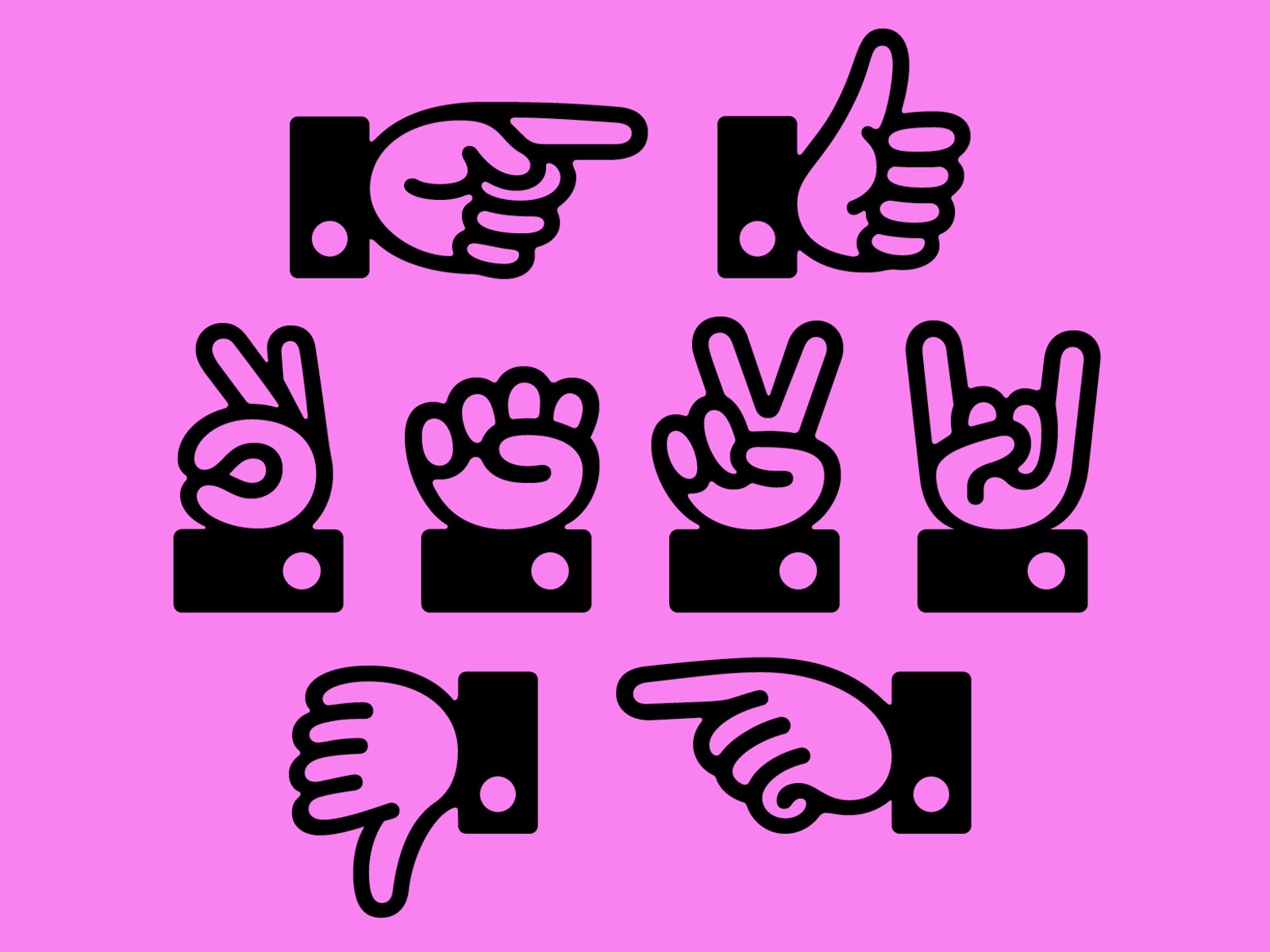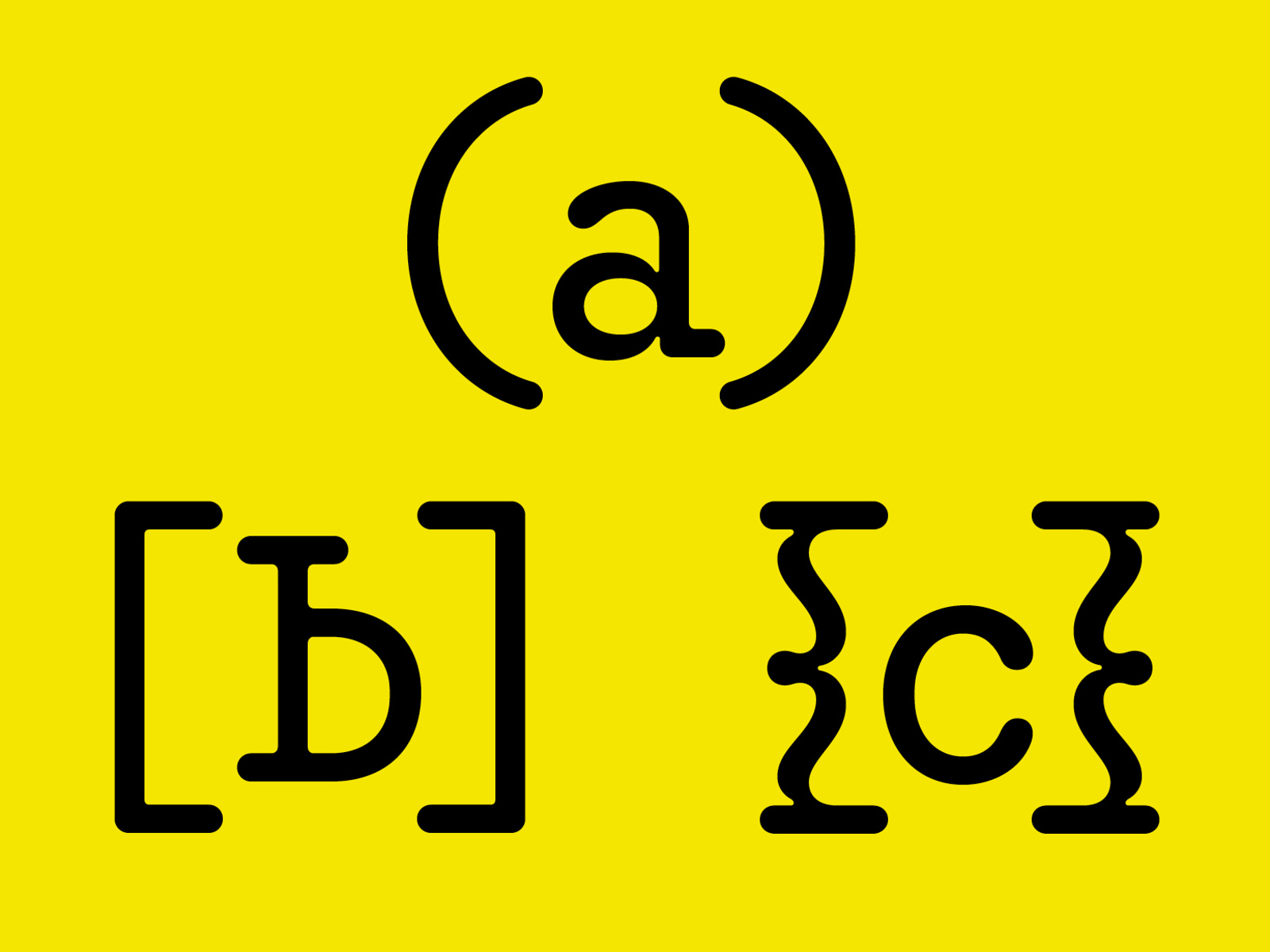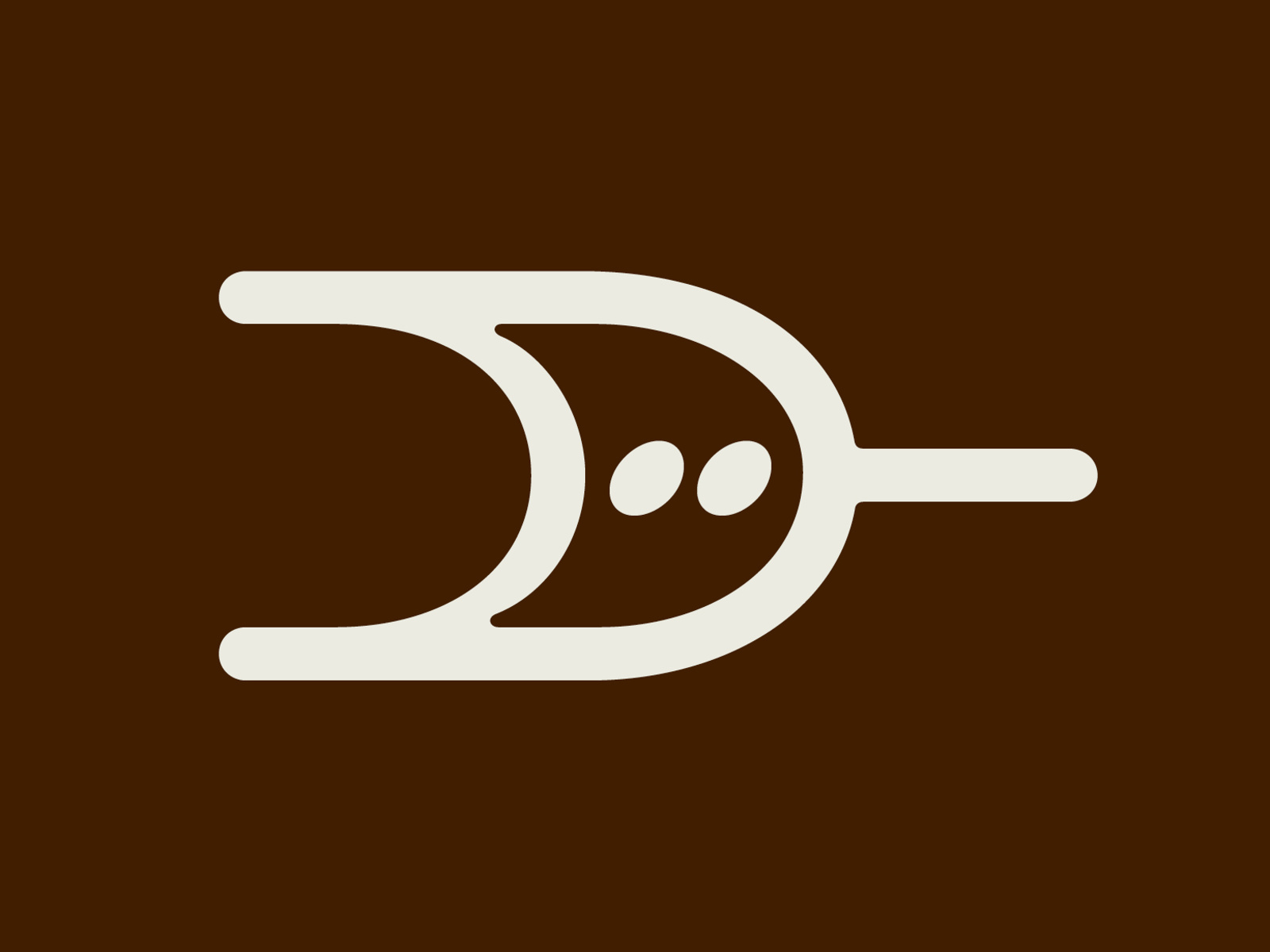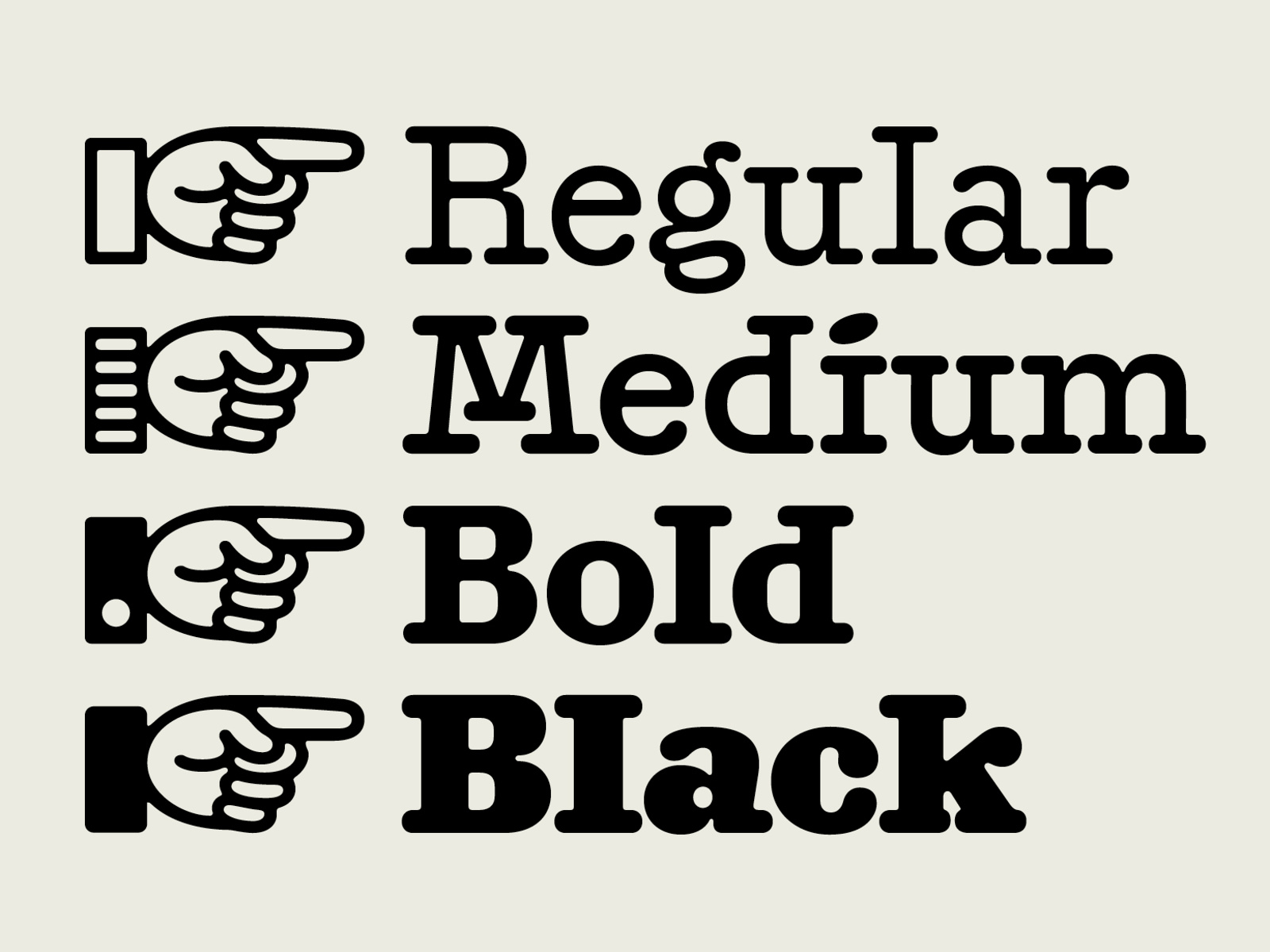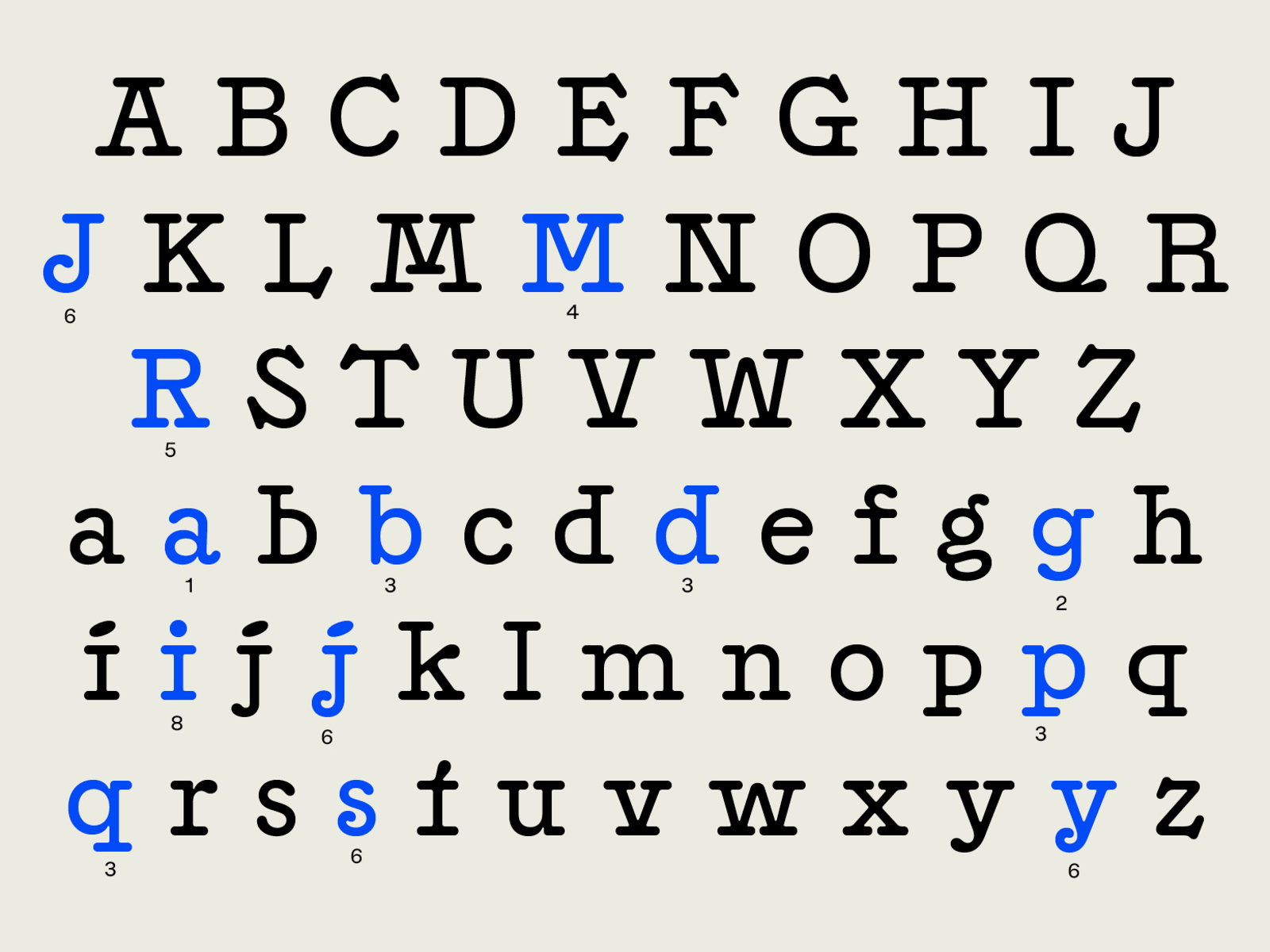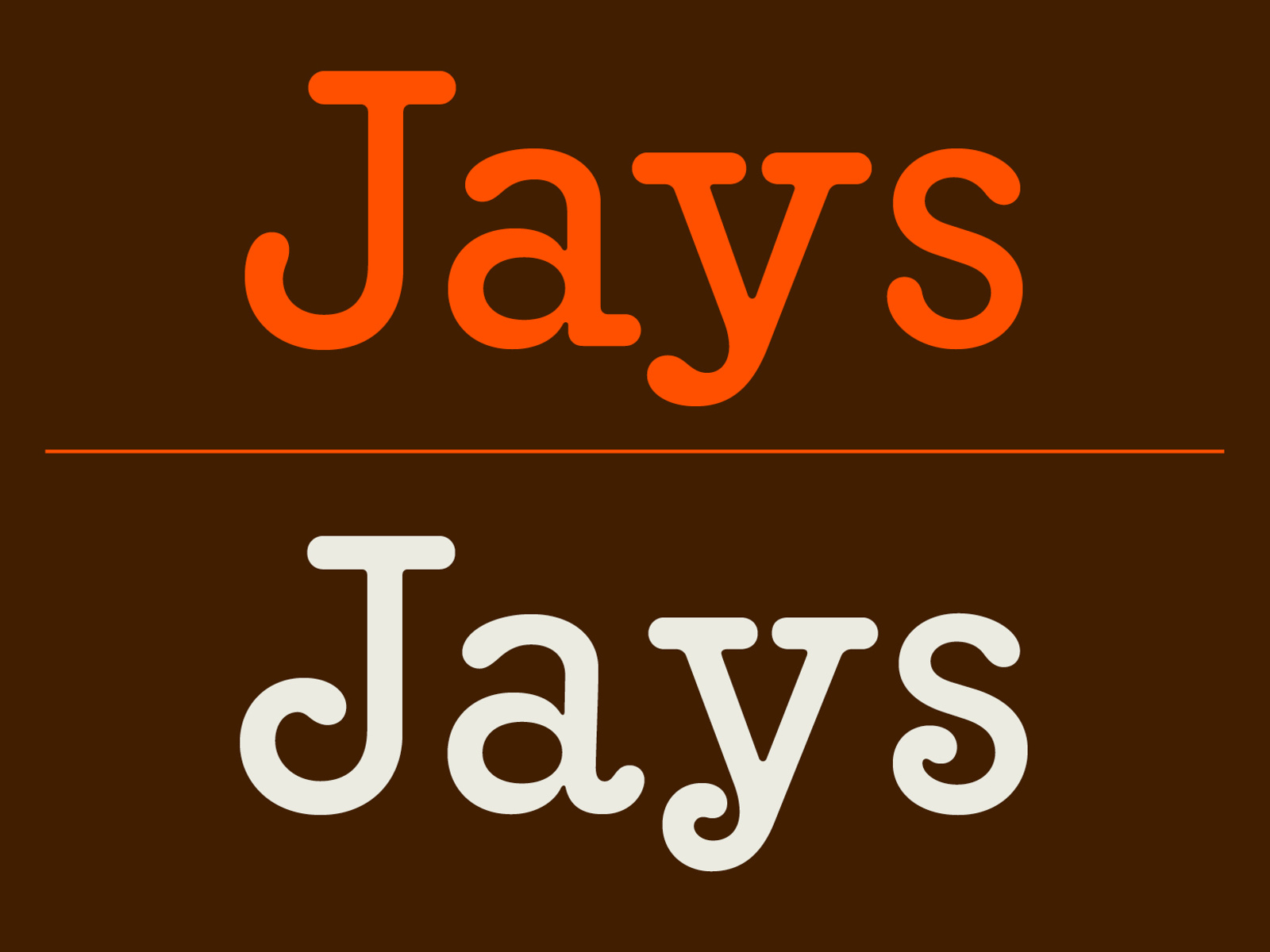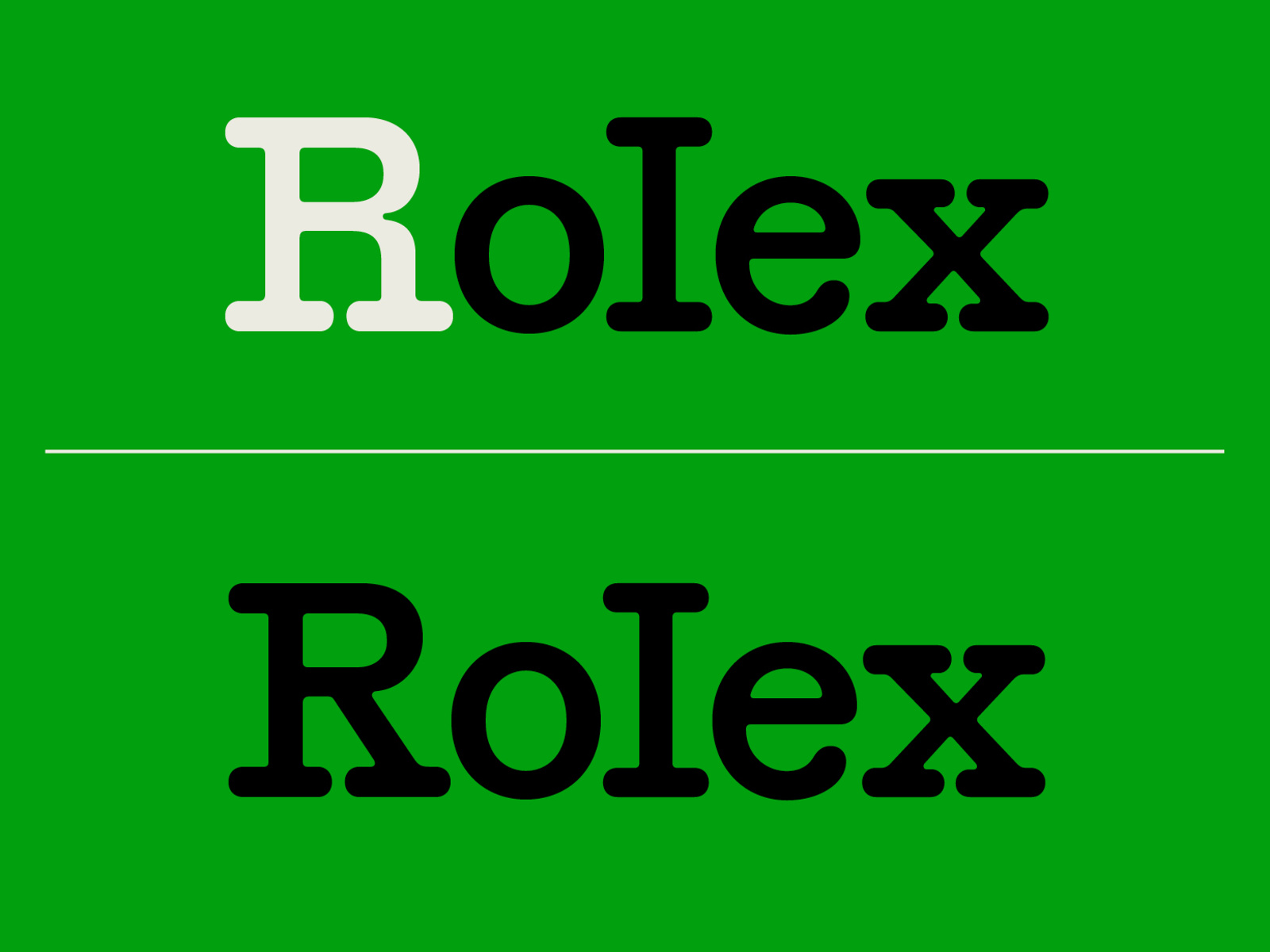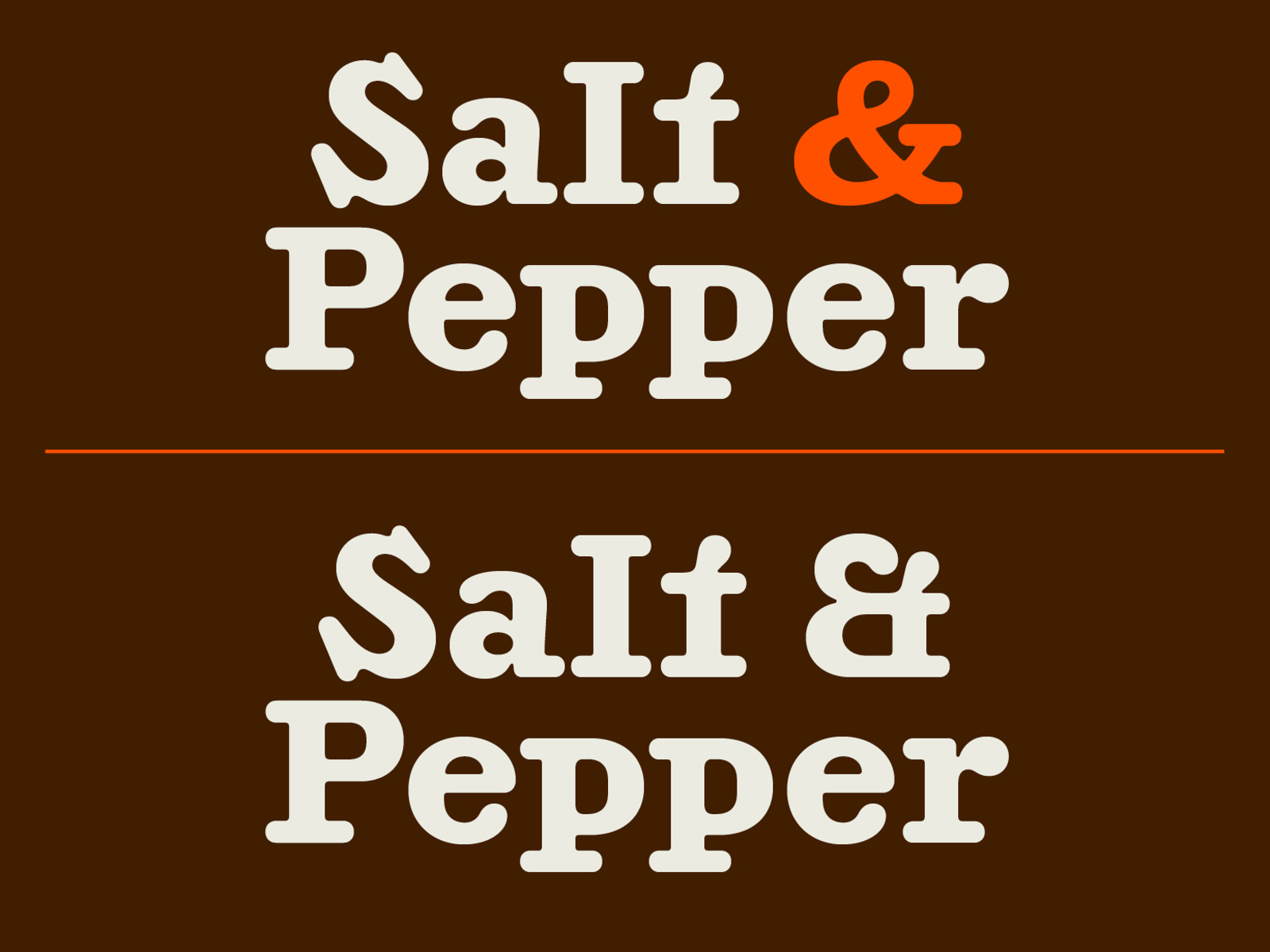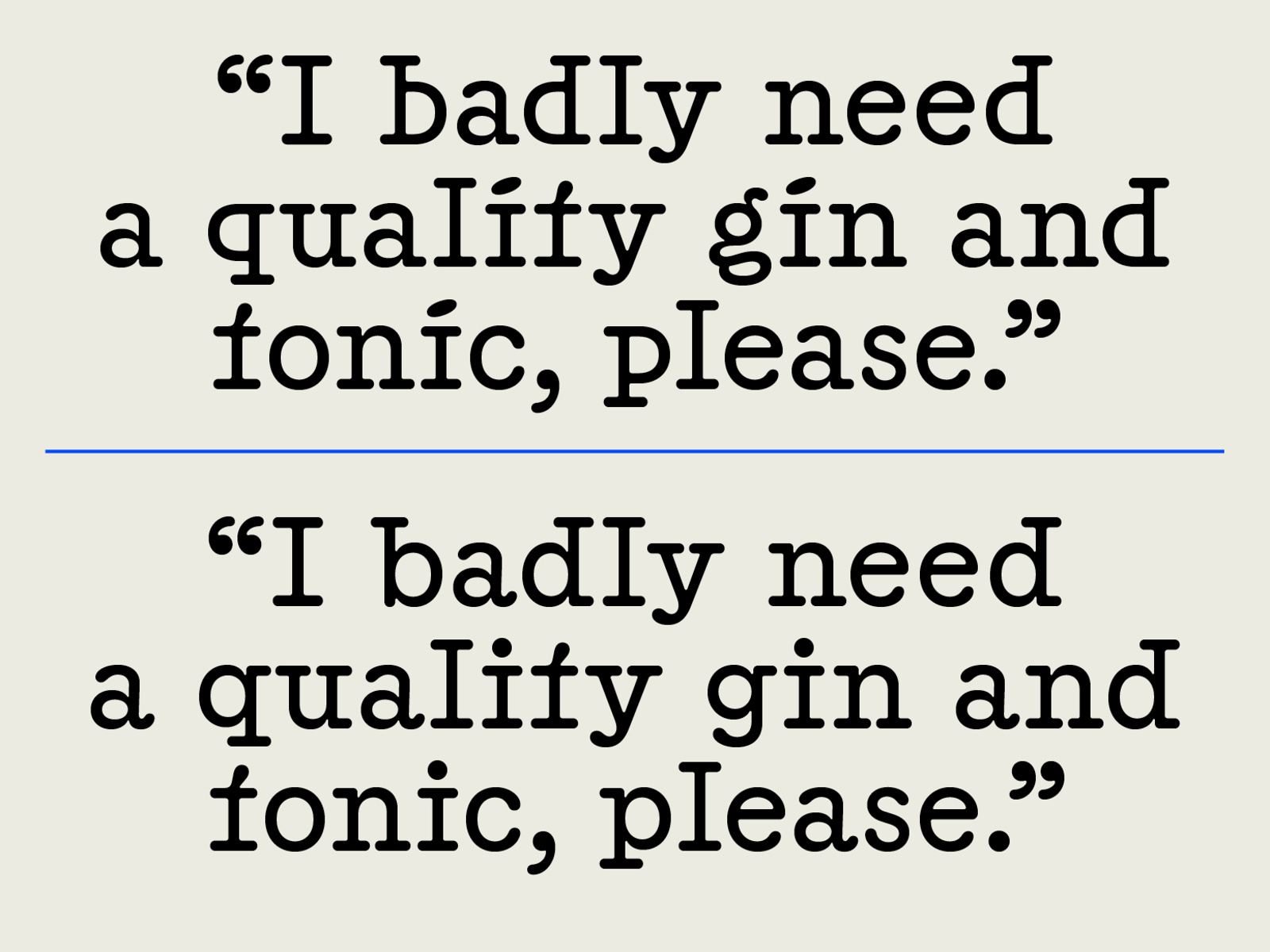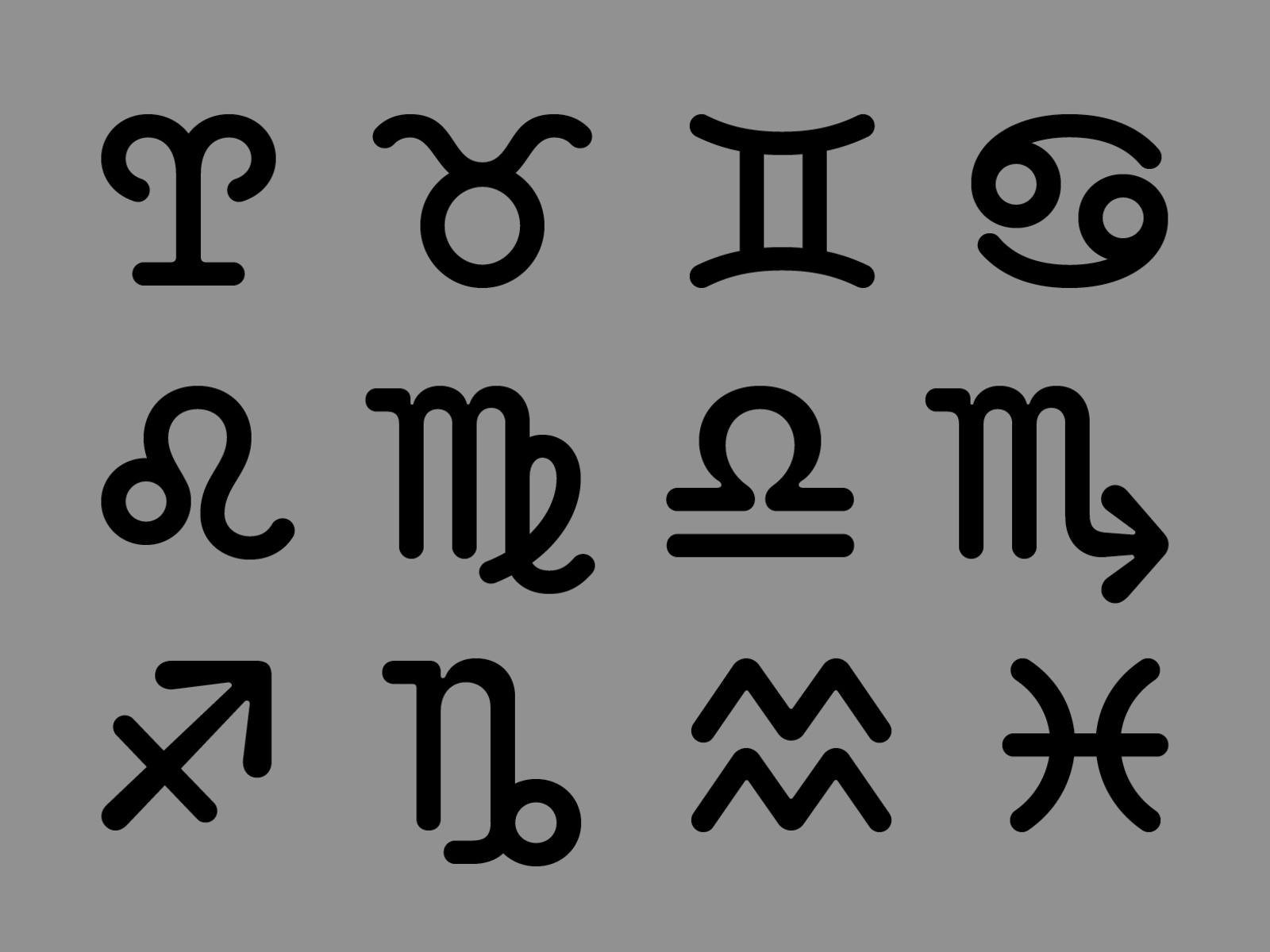
Meet Bernie… cute and classy, sophisticated and sassy. A lovable font whose meticulously crafted curves bring a warm embrace to every use, from bold display headlines to regular text settings.
Bernie is the latest in the offbeat tradition of soft-serifs, a style that traces back to German designer Lucian Bernhard, renowned for his bold lettering on iconic 1920s poster advertisements. From Bernhard, the trend crossed the Atlantic, materializing in classics like Cooper Black, Windsor, and American Typewriter, marking territory in a range of markets from political campaigns to hot dog promo. But as quickly as soft serifs rose to prominence, they faded, with few new interpretations since the 1970s… until now.
Today, Source Type is pleased to present Bernie, a cozy serif offering a soft touch for today’s hard times.
ST Bernie is designed by Laurenz Brunner and Stefan Fitze, first released by Source Type in 2025.
Berlin shoe store advertisement by German designer Lucian Bernhard (1913)
Various poster designs by Lucian Bernhard (c. 1910)
Bernhard-Antiqua specimen (1912)
Letterpress characters from Bernhard Antiqua
Notable soft-serif fonts throughout history
A custom soft-serif in use on various Hero advertisements, a European food manufacturer (c. 1950)
Windsor in use on the “Whole Earth Catalog”, Stewart Brand (1970)
Various soft-serifs in use on iconic bumper stickers (c. 1980)
Windsor and Cooper Black in use on various pieces of hot dog ephemera c. 1980
American Typewriter in use on the iconic I (Heart) New York concept layout, Milton Glaser (1976)
Bernhard Antiqua in use for the logo of Güggeli Express, a Zürich based rotisserie chicken cart.
Type specimen showing a selection of “manicules”